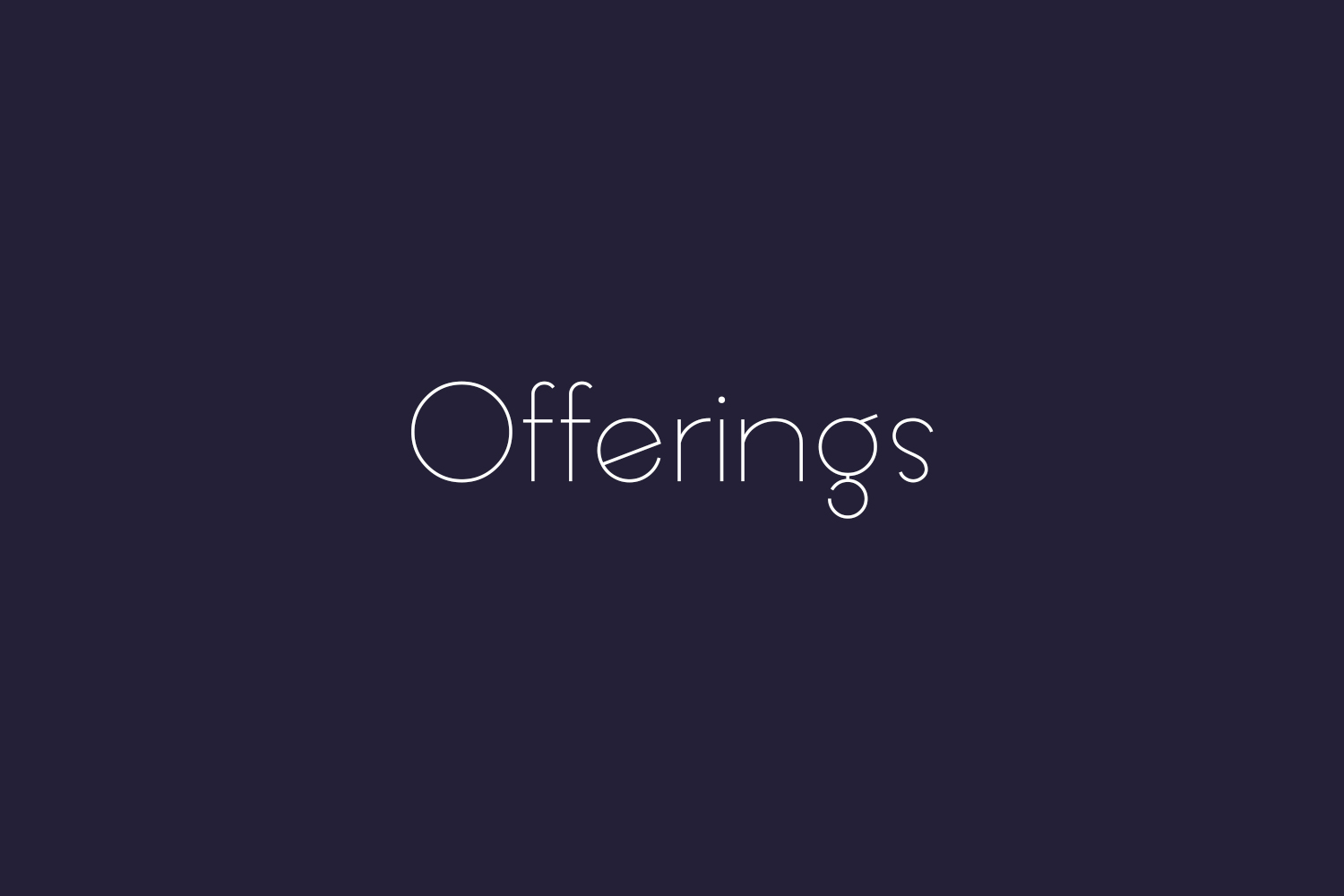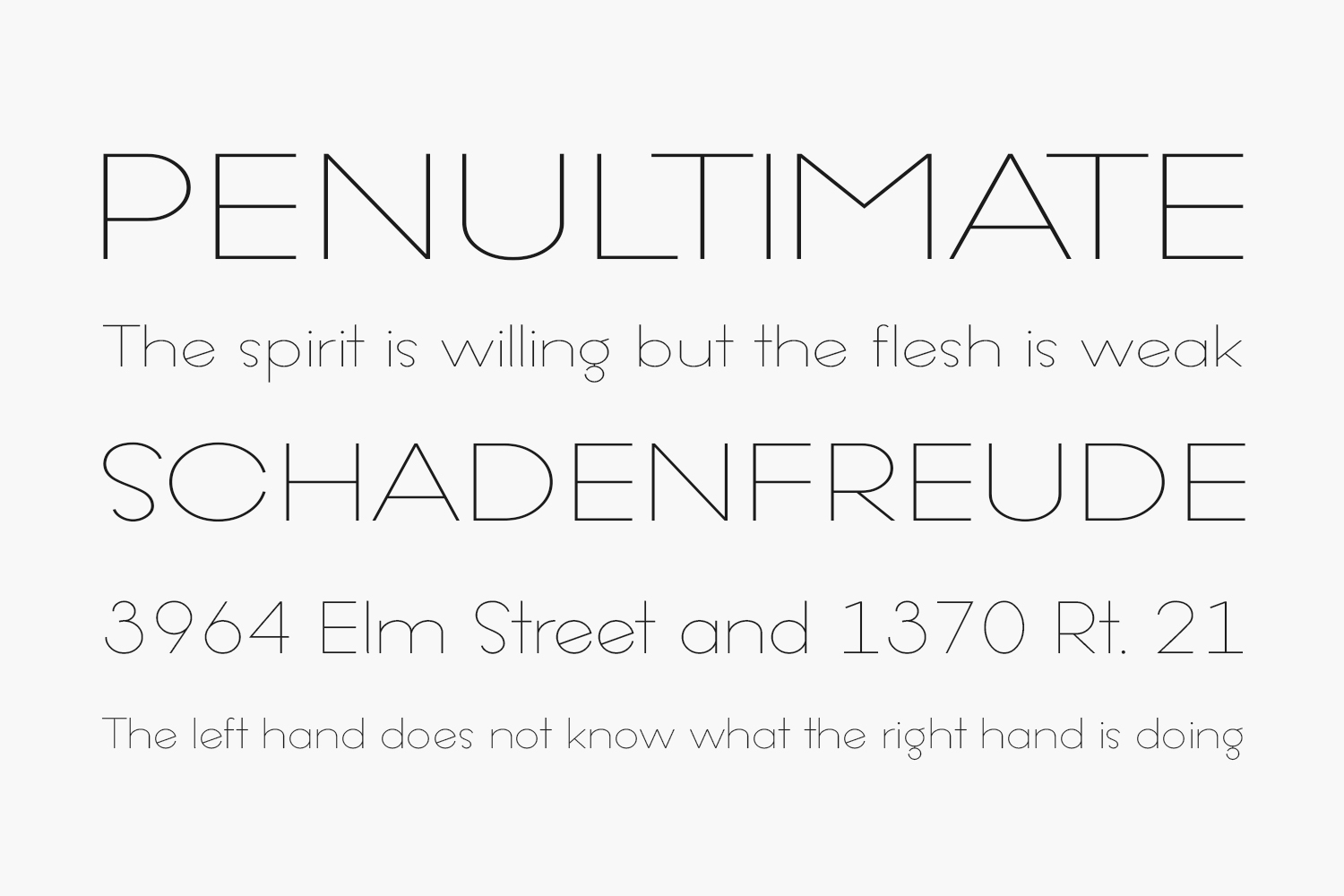
Offerings Free Font Family is an ultra-thin, circle-based sans serif font. It is designed smoothly using a monoline circle shape to make it looks and feels elegant. Please purchase the full version for commercial use.
Designed by 7NTypes